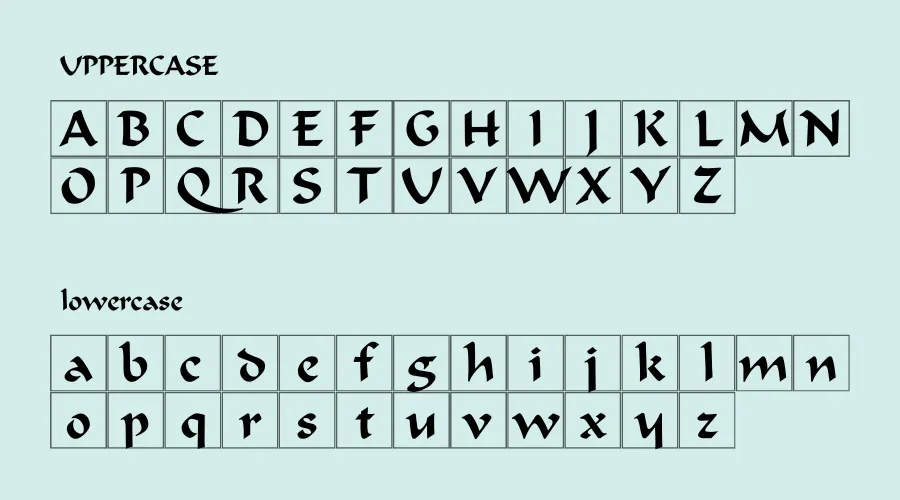
About Ondine Font
Adrian Frutiger created Ondine Font which is a curly text style. With ligatures, proportions, arrows, icons, fractions, case-sensitive forms lesser and greater commas, and circled figures, the font is perfect for advanced typography. A modern, clean, and professional appearance are can be seen its free version is available here.
You can use this font to enhance the appeal of fabric prints it has neat, clean, strong character shapes that make it perfect for enhancing the quality of your work. You can easily compare this font with the winob font.